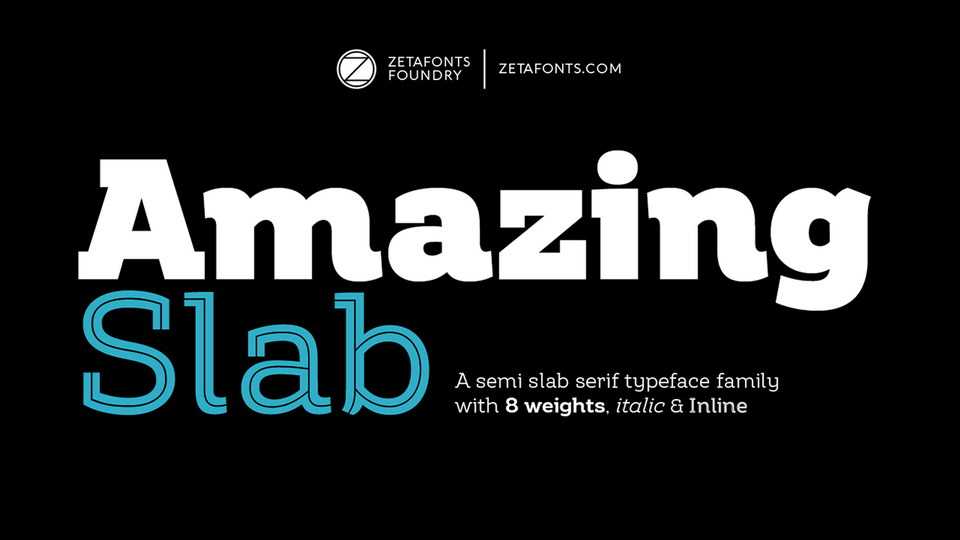
Download Amazing Slab typeface, a font family that mixing an egyptian serif, low contrast approach with the curved endings and open shapes of humanist sans grotesques.
Designer: Zetafonts